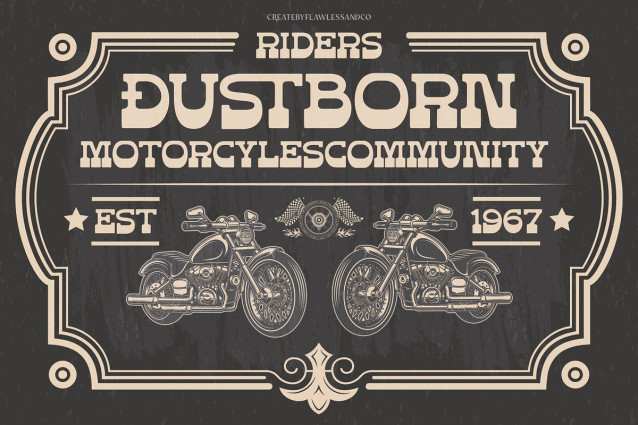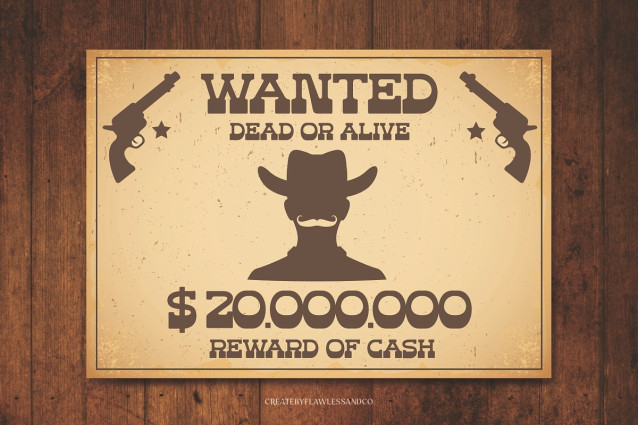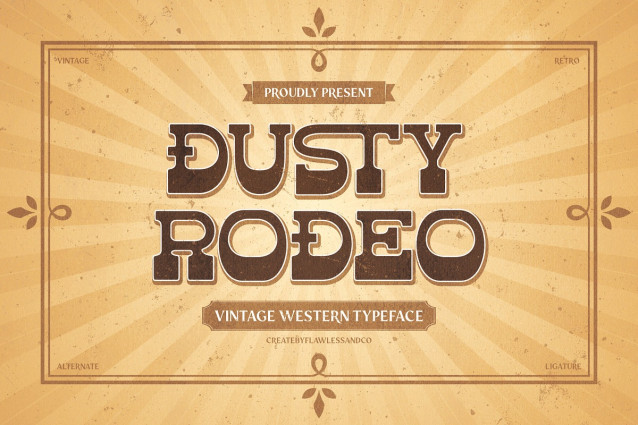
Dusty Rodeo Font
Dusty Rodeo Font is a bold Western-style display font that captures the rugged charm of the Wild West. Inspired by classic rodeo posters and cowboy culture, this typeface delivers strong, vintage character with sharp edges and an unmistakable Western flair.